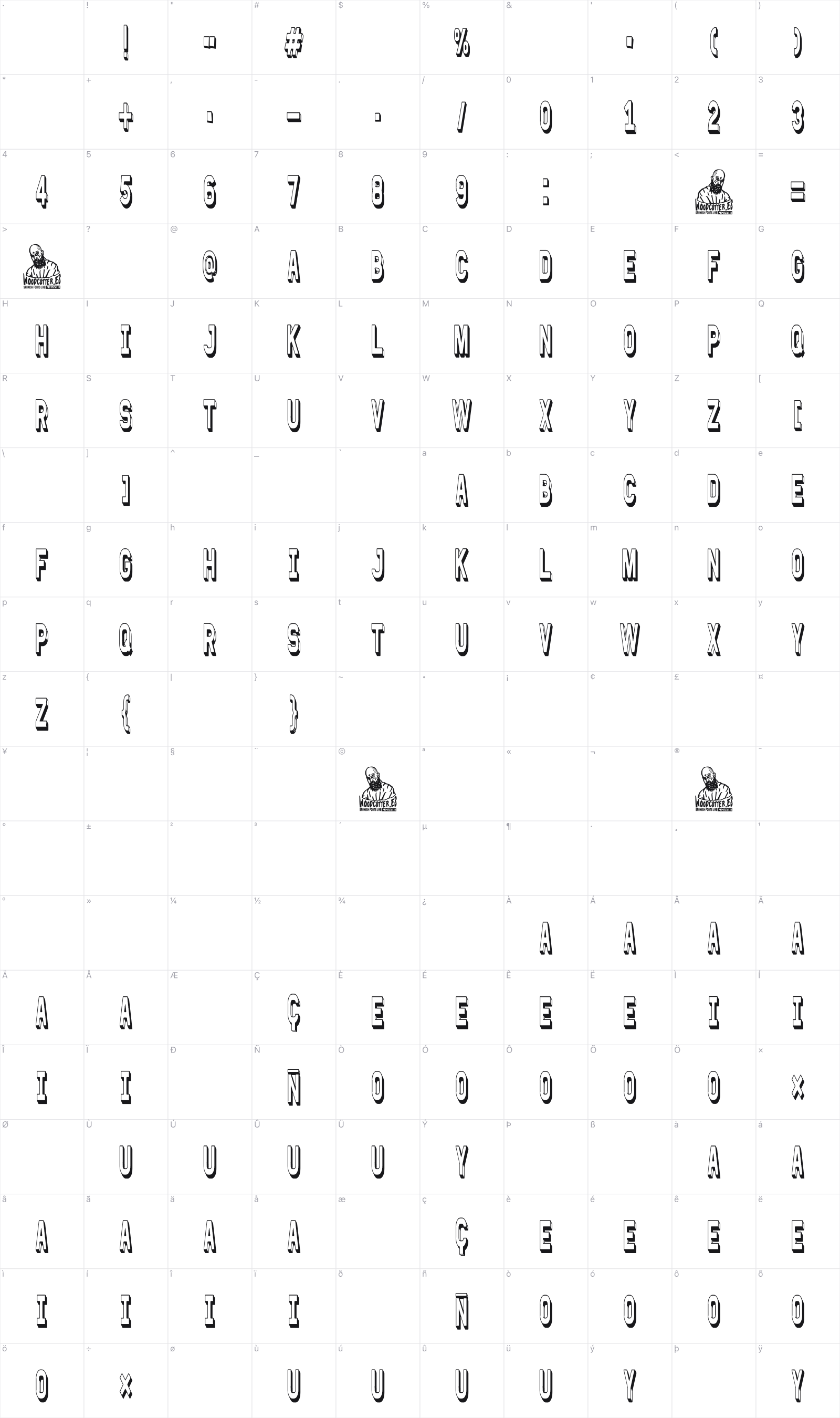
Retro Heaven
Retro Heaven is a chunky condensed display font by Woodcutter with a bold 3D block shadow and clean white inline outline. The rounded corners and heavy weight evoke mid-century American signage, arcade typography, and vintage comic books. Great for posters, packaging, and anything that needs loud retro energy.